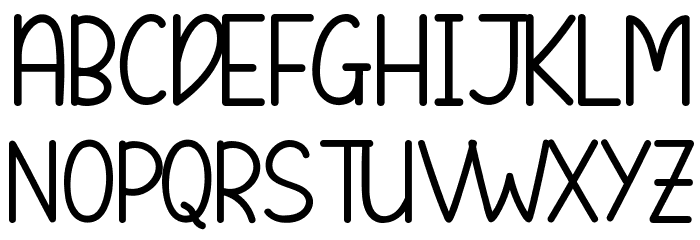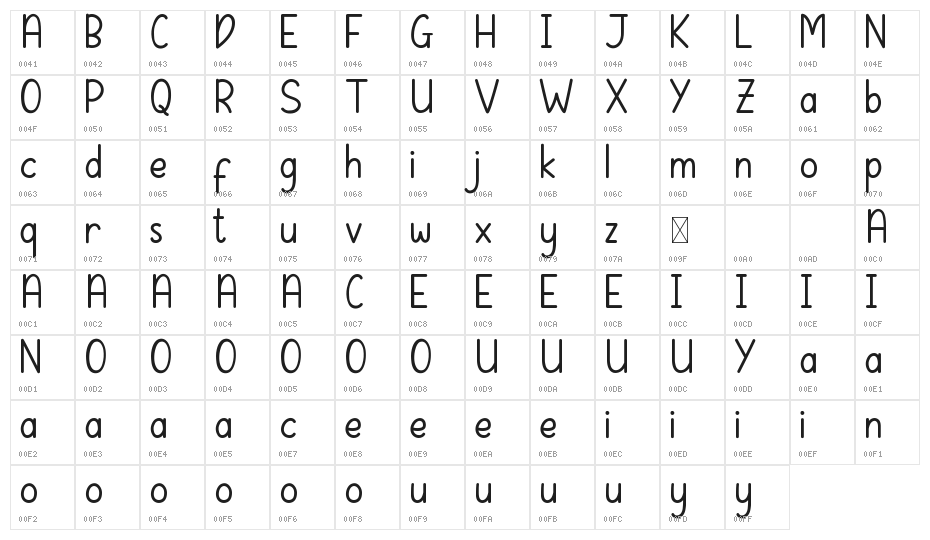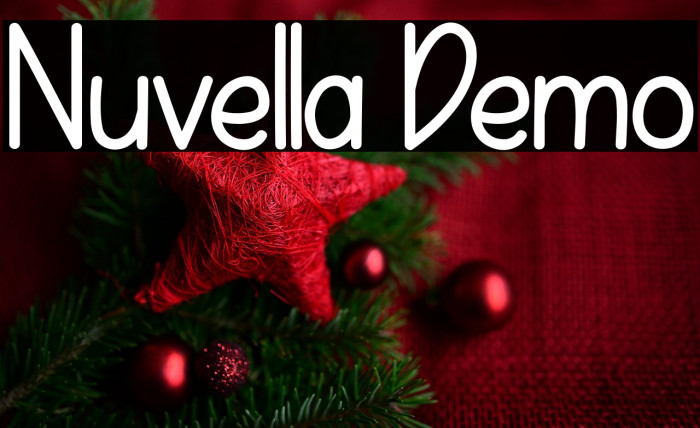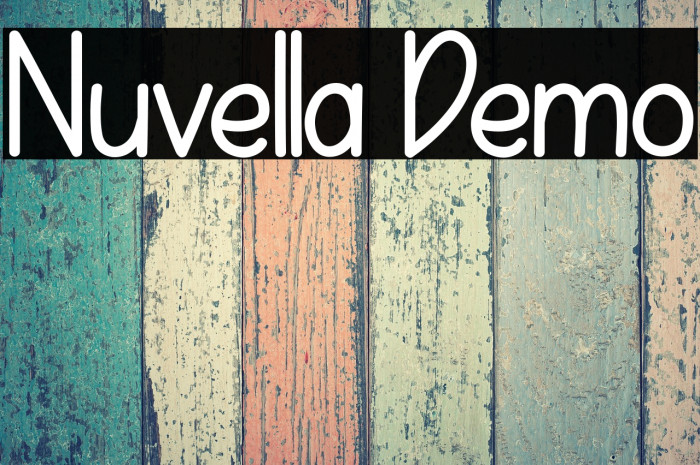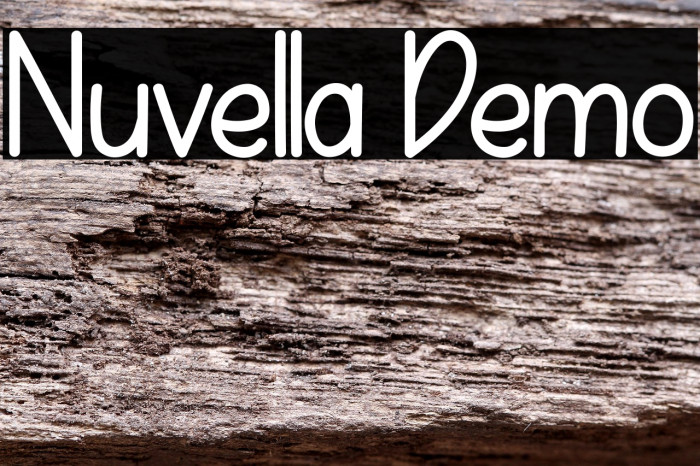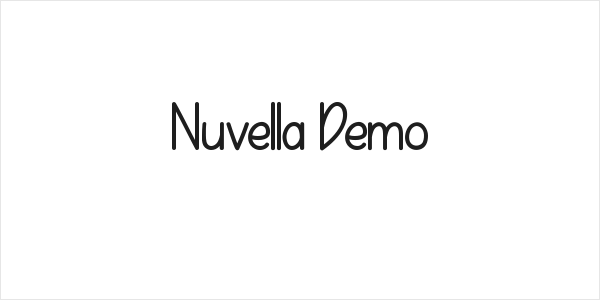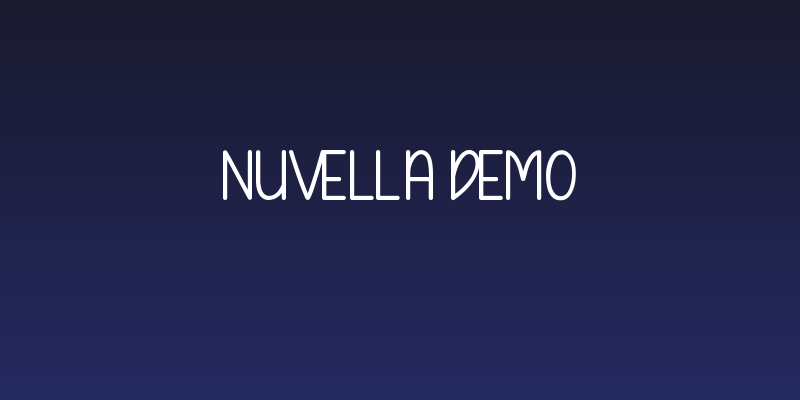
Nuvella Demo Font
Nuvella Demo Description
This font features a playful and modern design with a unique blend of rounded and angular elements. The uppercase letters are characterized by their clean lines and slightly condensed form, while the lowercase letters maintain a consistent roundness that adds a friendly and approachable feel. The strokes are uniform in weight, providing a balanced and harmonious appearance. The font includes a full set of uppercase and lowercase letters, numerals, and a selection of special characters, making it versatile for various design needs.